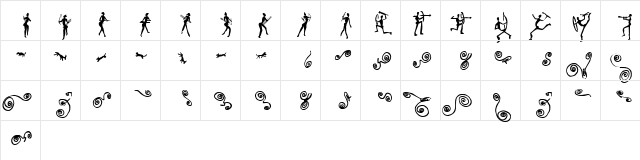
LinotypeAfrika Two Regular
Design Context for LinotypeAfrika Two Typeface
LinotypeAfrika Two is a composed and adaptable typeface that performs quietly and consistently across a wide range of design contexts.